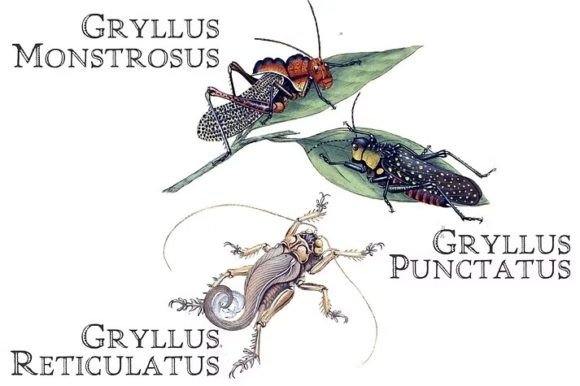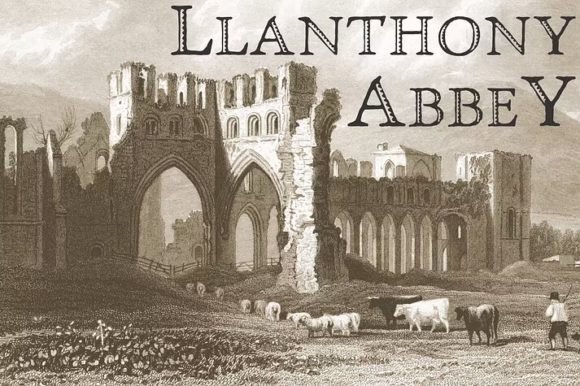
Discover the Timeless Charm of Greko Roman Old Style Font
Are you a designer or craftsperson looking for a font that embodies the essence of ancient craftsmanship? Look no further than the Greko Roman Old Style font. This classic font boasts a chiseled look that brings a touch of tradition and durability to your text. In this article, we’ll explore the unique features of Greko Roman Old Style and why it’s the perfect choice for projects seeking a blend of heritage and ruggedness.
The History of Greko Roman Old Style Font
Greko Roman Old Style font draws inspiration from ancient Greek and Roman typography. The font’s design is rooted in the serif fonts used in ancient Greece and Rome, where inscriptions were chiseled into stone and metal. Over time, these serif fonts evolved, influencing the development of modern typography. Greko Roman Old Style font is a revival of these classic serif fonts, reimagined for modern use.
Key Features of Greko Roman Old Style Font
- Chiseled Look: The font’s chiseled appearance gives it a sturdy, durable feel, reminiscent of ancient stone carvings.
- Timeless Appeal: Greko Roman Old Style font has a timeless quality that transcends fleeting design trends.
- Serif Details: The font’s serif details add a touch of sophistication and elegance to your text.
- High Legibility: The font’s clear, classic design ensures high legibility, even at smaller font sizes.
Uses for Greko Roman Old Style Font
Greko Roman Old Style font is versatile and can be used in a variety of projects, including:
- Logo Design: The font’s bold, chiseled look makes it perfect for logos that require a strong, classic presence.
- Headings and Titles: Use Greko Roman Old Style font to add a touch of elegance and sophistication to your headings and titles.
- Packaging Design: The font’s vintage charm makes it ideal for packaging design, particularly for products that require a classic, timeless look.
- Signage and Displays: Greko Roman Old Style font is well-suited for signage and displays, where its bold, durable design can be fully appreciated.
Tips for Using Greko Roman Old Style Font
To get the most out of Greko Roman Old Style font, consider the following tips:
- Pair with Modern Fonts: Combine Greko Roman Old Style font with modern fonts to create a striking contrast.
- Experiment with Colors: Try pairing the font with bold, rich colors to enhance its vintage charm.
- Use for Emphasis: Use Greko Roman Old Style font to draw attention to specific text elements, such as headings or calls-to-action.
Greko Roman Old Style font is a classic choice for designers and craftspersons seeking a timeless, vintage aesthetic. Its chiseled look, serif details, and high legibility make it perfect for a wide range of projects. Whether you’re looking to add a touch of tradition, durability, or elegance to your text, Greko Roman Old Style font is an excellent choice. Embrace the enduring charm of this old-world font and bring a piece of history to your design.